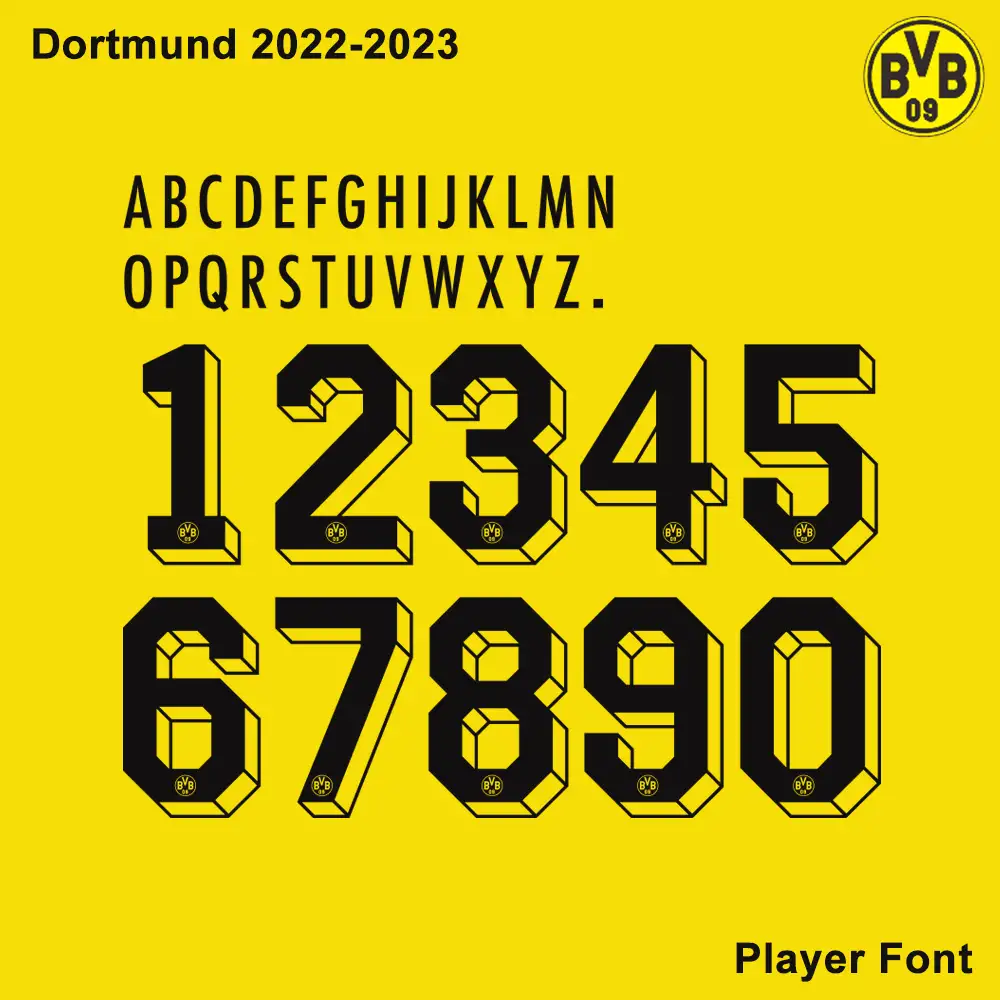
Dortmund 2022-2023 Kit Font
The Puma BVB 22-23 kit typeface is inspired by the classic fonts of the past century and the 1990s in particular. Indeed, the new BVB 2022-2023 font is practically identical to the typeface used in the 1990s by the club.